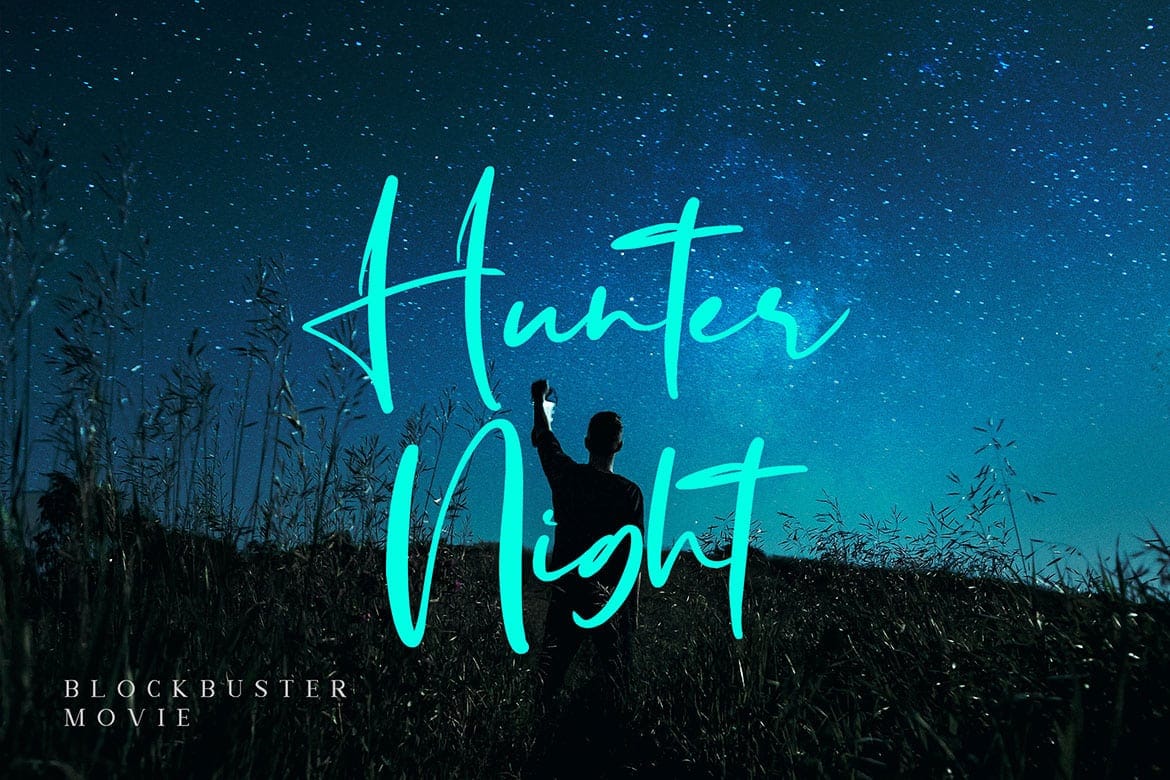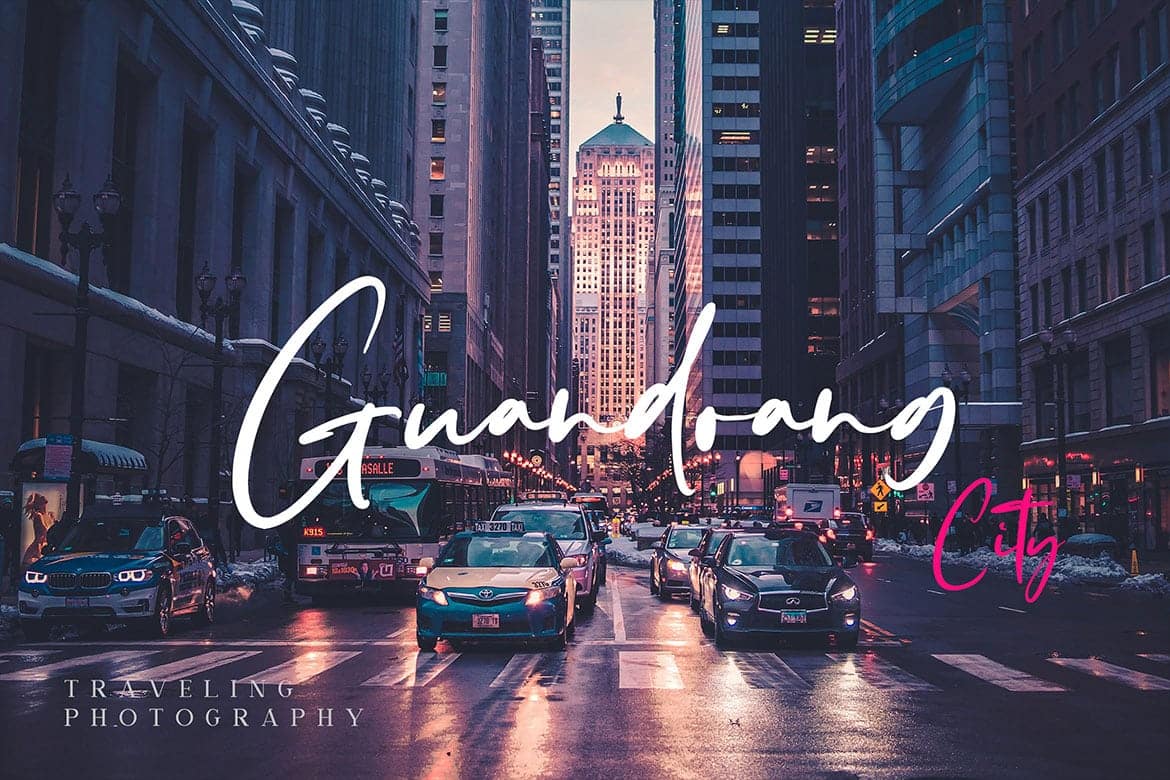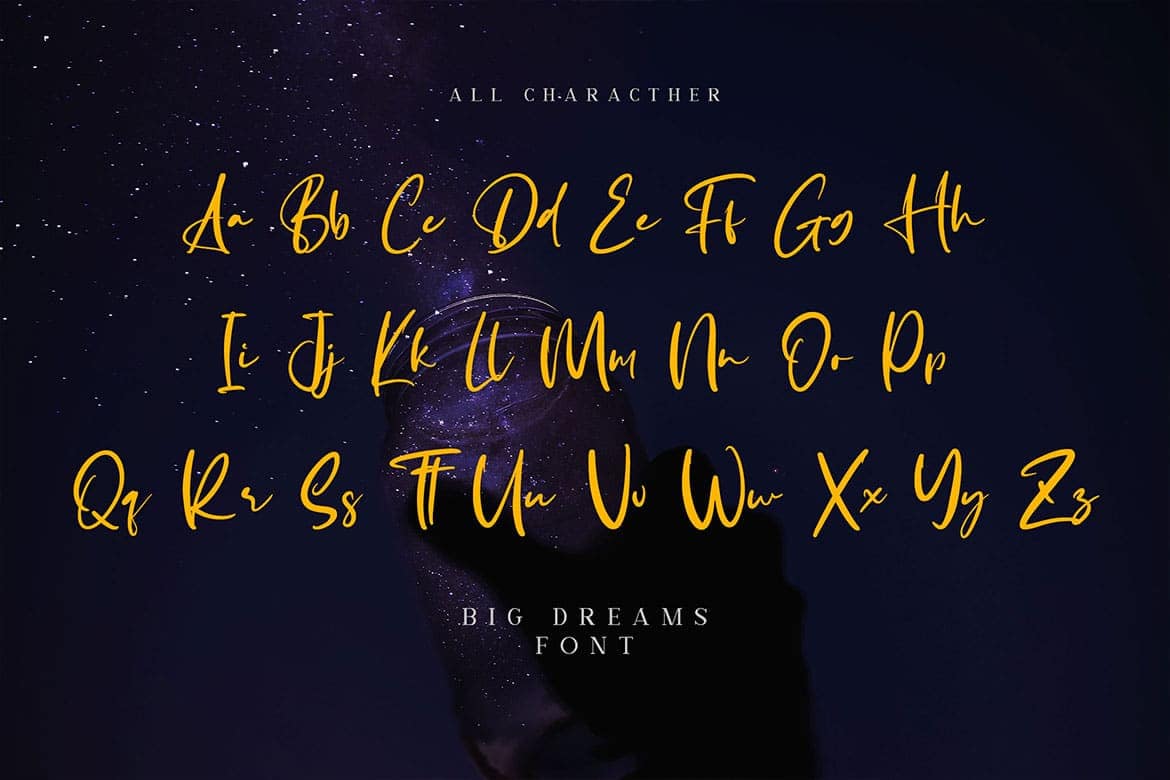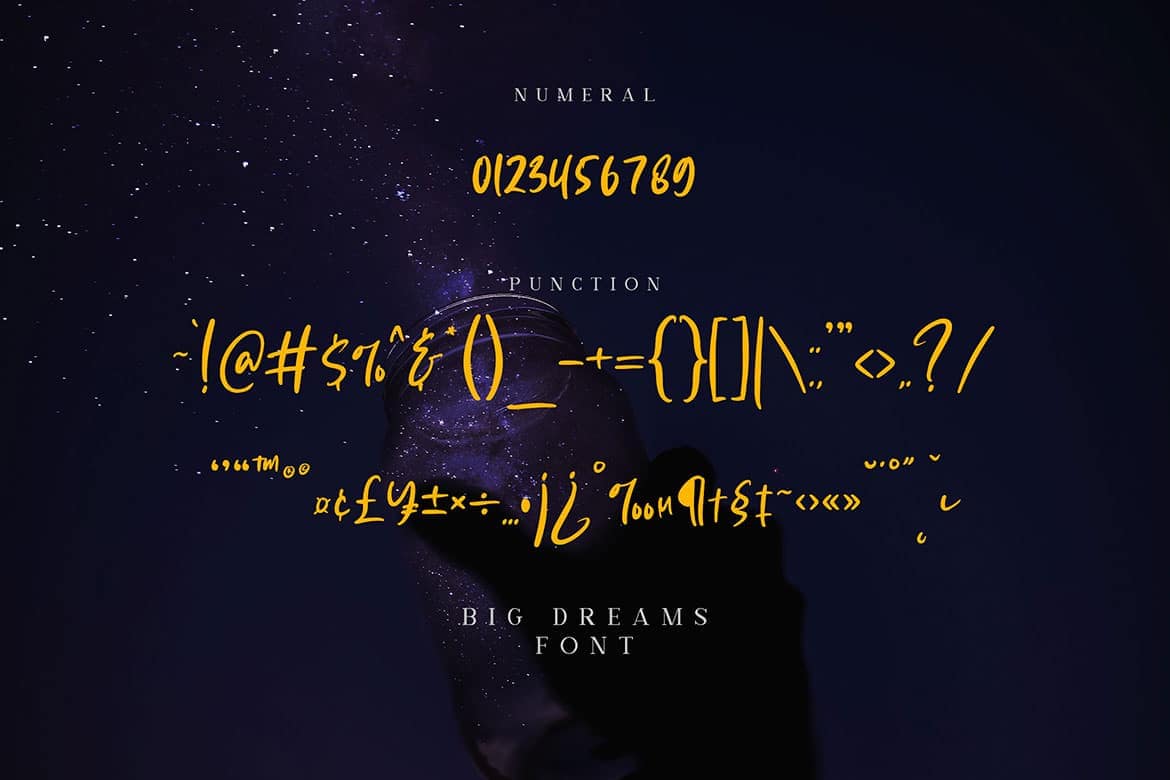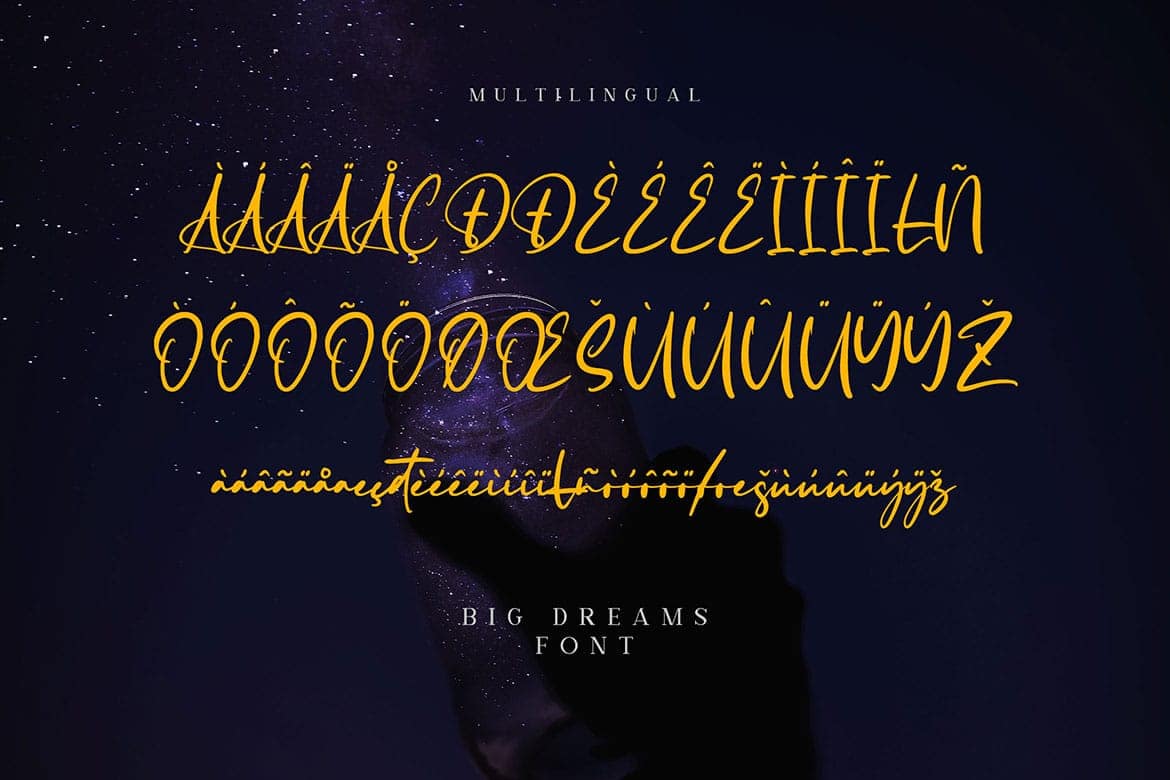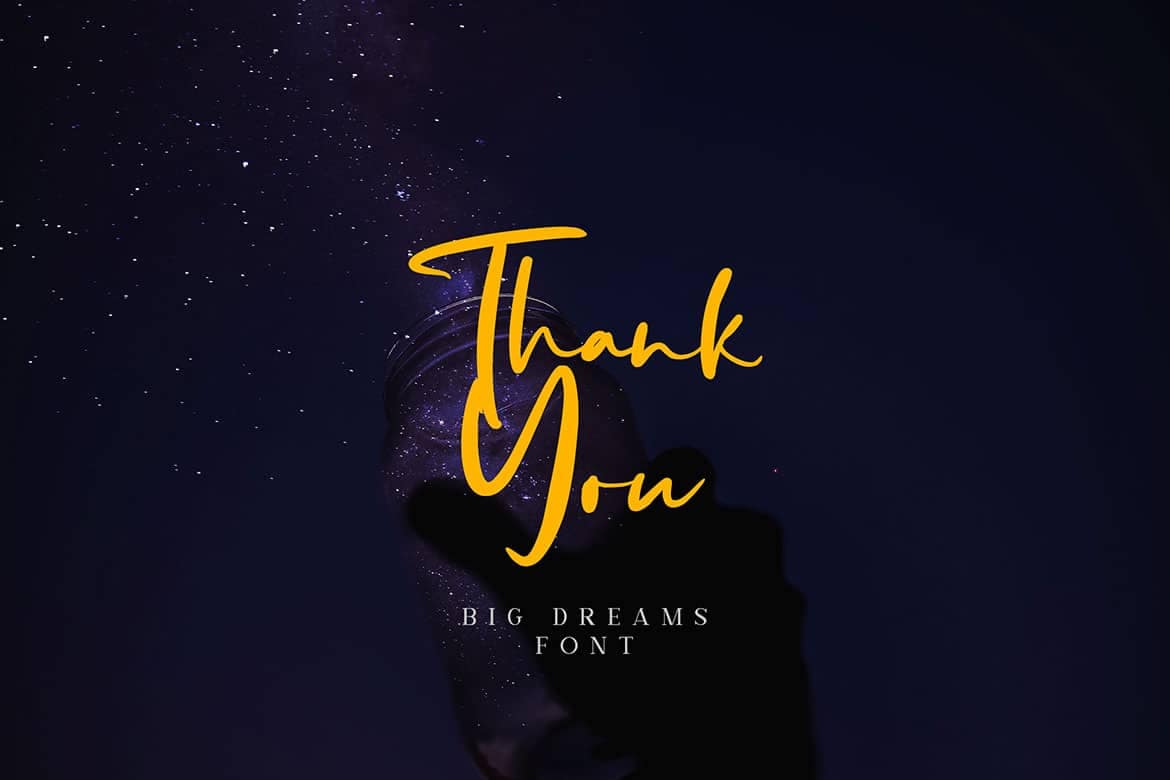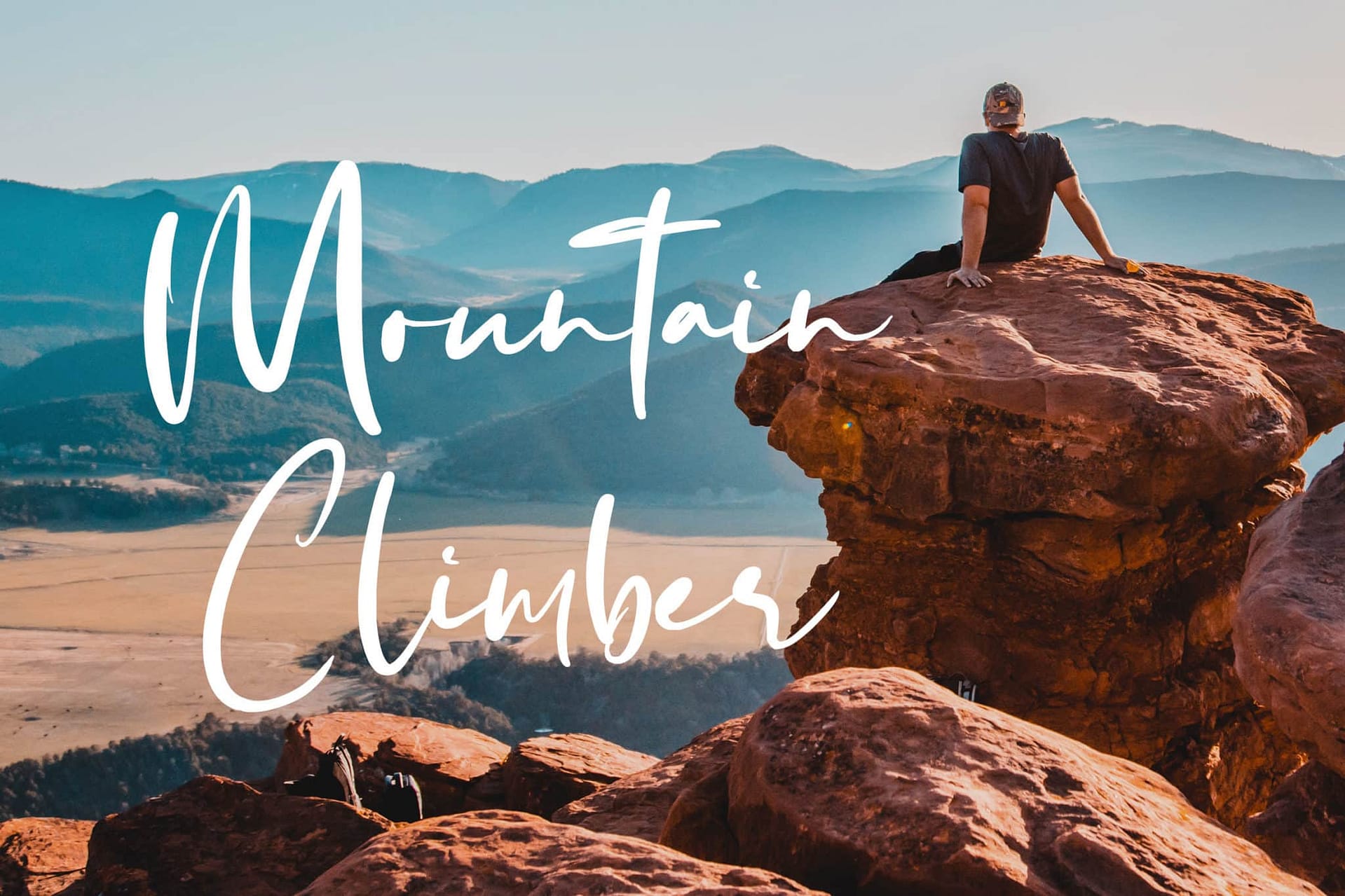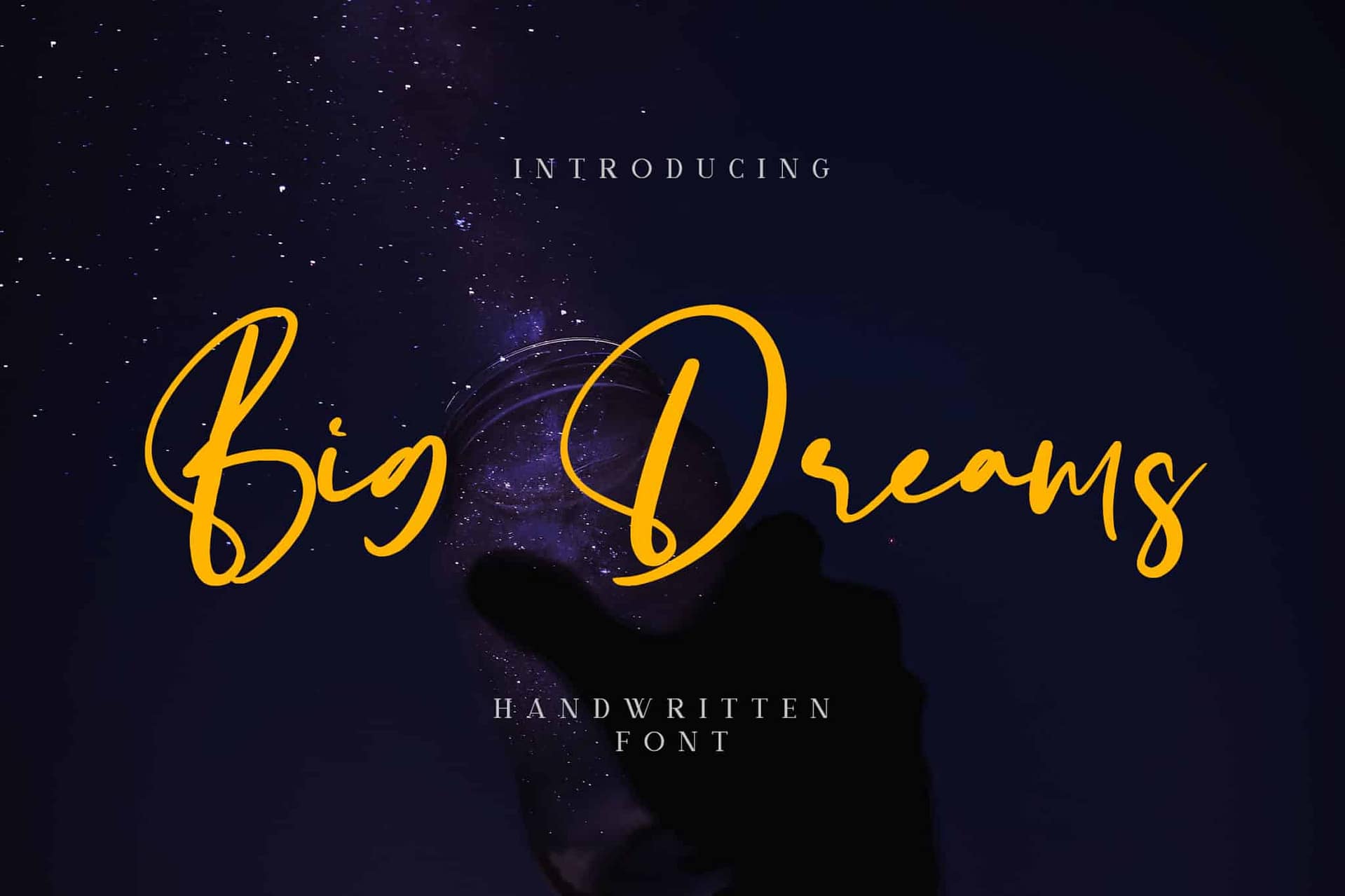
Big Dreams font is handwritten script font. It has casual, classy, and beauty.. Itโ€™s a great font for fashion, apparel projects, signature, album cover, logo, branding, magazine, social media, & advertisements, but also works great for other projects.
• Basic Latin A-Z and a-z
• Numbers
• Punctions
Big Dreams – Handwritten Font